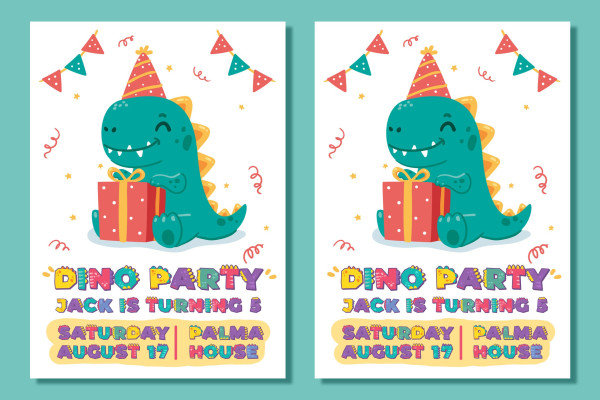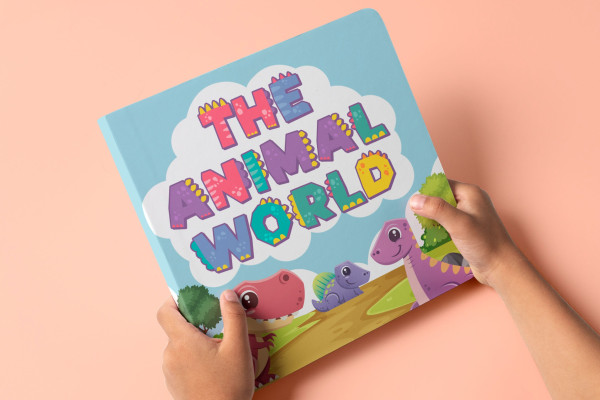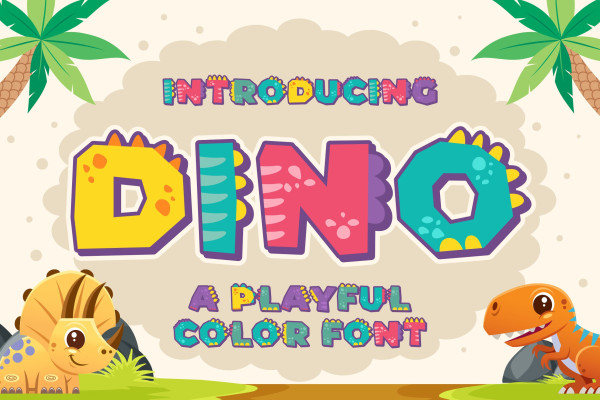
Dino Display Font
Dino Display Font a SVG Color Font Inspiring from Playful typography. This font is perfect for a design that makes it more attractive and playful. made with a very good level of aesthetics making this font suitable for book cover, poster, packging, merchandise, logotype and much more.